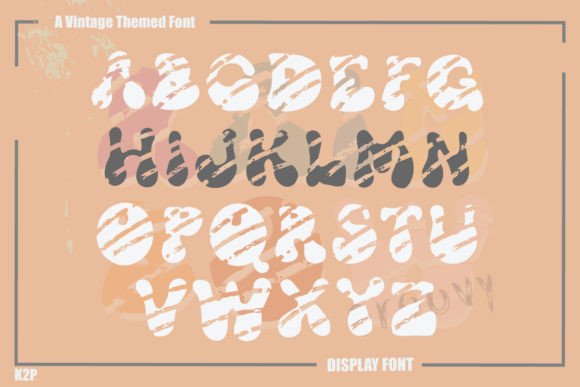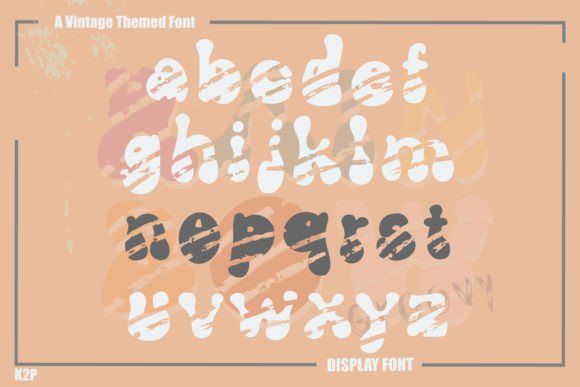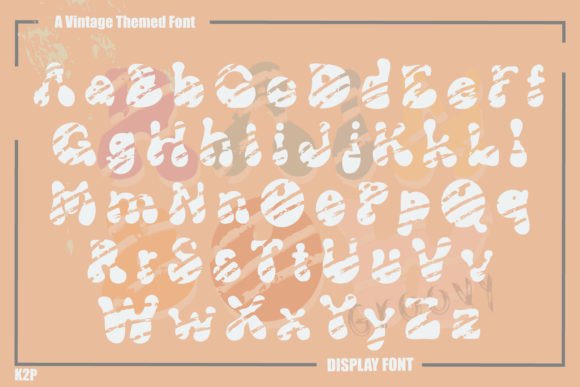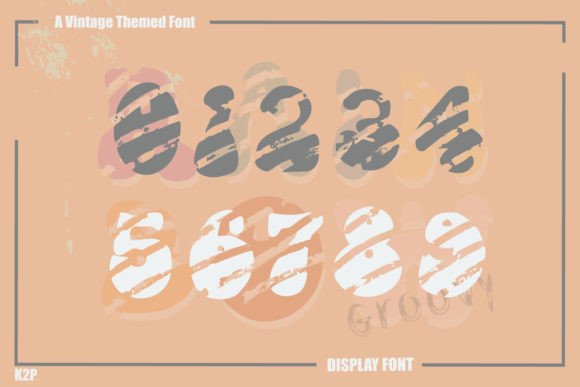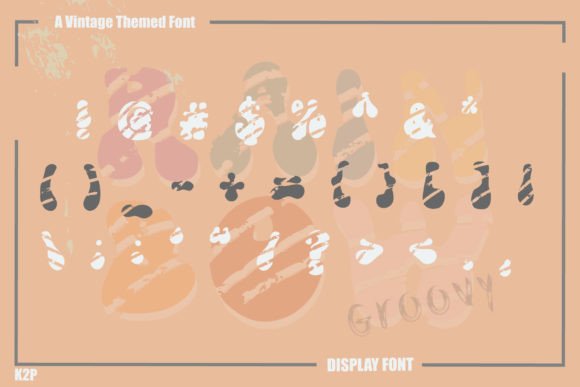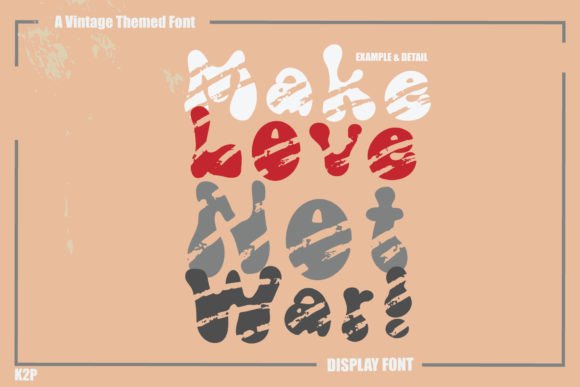
Groovy Rainbow Font: Add a Splash of Retro Fun to Your Designs
Are you looking for a font that can add a dash of fun, retro charm, and whimsy to your designs? Look no further than the Groovy Rainbow Font! This delightful display font is sure to capture your heart with its incredibly distinct and timeless style. In this article, we’ll dive into the world of Groovy Rainbow and explore how you can use it to create spectacular designs that will leave a lasting impression.
What is Groovy Rainbow Font?
Groovy Rainbow is a fun, retro, and whimsical display font that’s perfect for designers and crafters who want to add a touch of nostalgia to their work. Its unique and colorful design makes it stand out from the crowd, and its versatility ensures that it can be used in a wide range of projects, from digital designs to print materials.
Key Features of Groovy Rainbow Font
- Retro charm: Groovy Rainbow Font has a distinctly retro feel that’s reminiscent of the 1960s and 1970s. Its funky and playful design is sure to bring a smile to your face!
- Whimsical style: This font is perfect for designers who want to add a touch of whimsy to their work. Its curly and swirly lines make it a great choice for projects that require a bit of personality.
- Distinctive style: Groovy Rainbow Font has an incredibly distinct style that’s hard to find in other fonts. Its unique design makes it perfect for creating eye-catching headlines and titles.
- Timeless appeal: Despite its retro charm, Groovy Rainbow Font has a timeless appeal that ensures it will remain stylish for years to come.
Uses of Groovy Rainbow Font
Groovy Rainbow Font is a versatile font that can be used in a wide range of projects, including:
- Digital designs: Use Groovy Rainbow Font to create eye-catching social media graphics, blog posts, and website headers.
- Print materials: This font is perfect for creating fun and colorful print materials, such as posters, flyers, and brochures.
- Crafting projects: Groovy Rainbow Font is a great choice for crafters who want to add a personal touch to their projects, such as handmade cards, scrapbook pages, and DIY signs.
Tips for Using Groovy Rainbow Font
Here are some tips for using Groovy Rainbow Font in your designs:
- Use it sparingly: While Groovy Rainbow Font is fun and playful, it can be overwhelming if used excessively. Use it sparingly to create a focal point in your design.
- Pair it with neutral fonts: Pair Groovy Rainbow Font with neutral fonts to create a balanced design. This will ensure that your text is easy to read and your design doesn’t feel cluttered.
- Experiment with colors: Groovy Rainbow Font comes in a range of colors, so don’t be afraid to experiment and find the perfect color scheme for your design.
Groovy Rainbow Font is a fun, retro, and whimsical display font that’s perfect for designers and crafters who want to add a touch of nostalgia to their work. Its unique and colorful design makes it stand out from the crowd, and its versatility ensures that it can be used in a wide range of projects. With its incredibly distinct and timeless style, Groovy Rainbow Font is sure to capture your heart and inspire your creativity. So why not give it a try and see how you can use it to create spectacular designs that will leave a lasting impression?